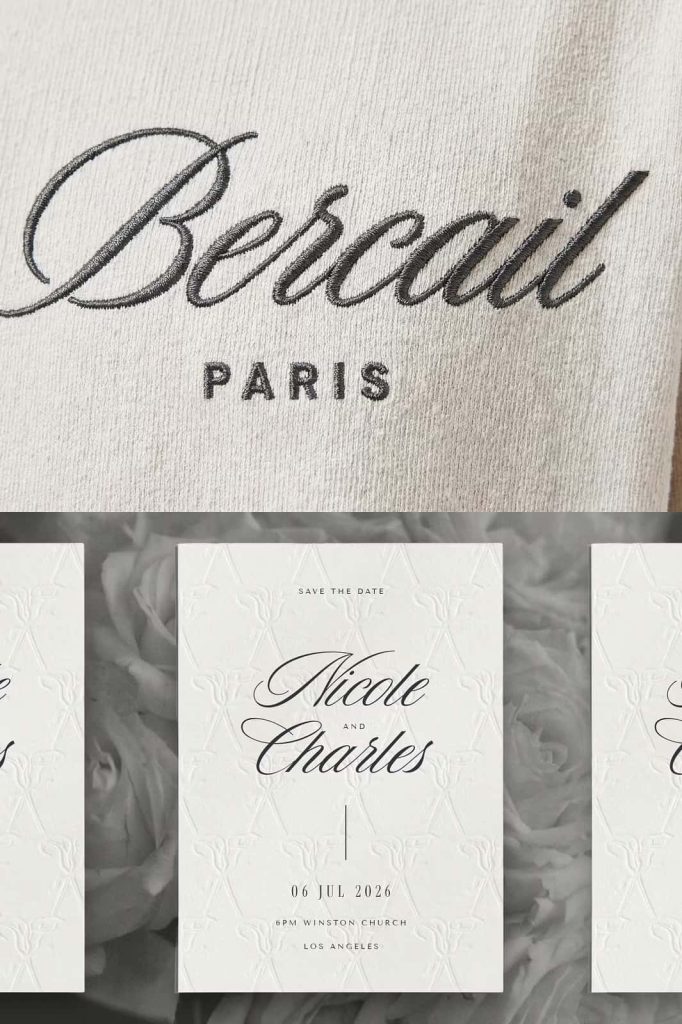
Editorial Society: A Luxury Font Duo for High-End Editorial and Fashion Design
Editorial Society is a refined luxury font duo created for designers who demand elegance, balance, and versatility in their typography. Designed specifically for high-end editorial design, fashion branding, and sophisticated visual identities, this collection delivers a harmonious pairing of two distinct type styles. By combining a timeless serif with a carefully crafted handwritten script, Editorial Society offers a complete typographic system that feels both elevated and approachable.
This font duo allows designers to communicate confidence and refinement while maintaining warmth and personality. Whether used for magazine layouts, premium branding, or visual storytelling, Editorial Society transforms text into a polished and expressive design element.
A Timeless Serif with Editorial Authority
The serif typeface within the Editorial Society collection forms the backbone of the system. Its design draws from classic editorial typography, emphasizing balanced proportions, clean contrast, and strong readability. This serif font carries a sense of authority and sophistication, making it ideal for headlines, body text, and structured layouts.
The letterforms feel deliberate and composed, supporting long-form reading without fatigue. This makes the serif component particularly effective for magazines, books, and editorial spreads where clarity and elegance must coexist.
Designed for Fashion and Luxury Publications
Fashion and luxury branding rely heavily on typography to communicate identity and tone. The serif in Editorial Society supports this need by delivering a polished, high-end appearance that aligns naturally with premium aesthetics. Its refined structure allows brands to present themselves as confident, established, and detail-oriented.
When used in fashion editorials or lookbooks, the serif font provides visual stability and elegance, anchoring layouts with a sense of timeless style.
An Elegant Handwritten Script with Natural Flow
Complementing the serif typeface is a handwritten script designed to introduce softness and personality. This script feels natural and fluid, offering expressive contrast to the structured serif. Its strokes are smooth and intentional, allowing it to enhance designs without overpowering them.
The script brings warmth and human touch to visual identities, making it ideal for accent text, logos, signatures, and secondary headlines. It adds emotional depth while maintaining a refined appearance suitable for luxury design.
A Balanced Pairing for Versatile Typography
What sets Editorial Society apart is the careful balance between its two fonts. The serif and script are designed to work together seamlessly, sharing compatible proportions and visual rhythm. This harmony allows designers to combine them confidently within a single layout.
The pairing creates contrast without conflict, enabling designers to build hierarchy, emphasis, and narrative flow with ease.
Perfect for Branding, Headlines, and Visual Identity
Editorial Society excels in branding projects that require flexibility and sophistication. Designers can use the serif font for primary branding elements such as logos, headlines, and body text, while the script adds personality to taglines, accents, and signature elements.
This versatility makes the font duo suitable for fashion labels, beauty brands, luxury products, and creative studios seeking a cohesive yet expressive typographic system.
Adaptable Across Print and Digital Design
The Editorial Society font duo performs consistently across both print and digital media. In print, its refined details and balanced spacing ensure clarity and elegance. In digital environments, the fonts maintain their visual strength, making them suitable for websites, social media, and online publications.
Designers can rely on this duo to maintain brand consistency across multiple platforms while adapting to different layout requirements.
Why Choose Editorial Society?
Editorial Society offers a complete typographic solution for designers who value luxury, balance, and versatility. Its combination of a timeless serif and an elegant handwritten script provides the tools needed to create sophisticated editorial layouts and refined brand identities.
If your project calls for high-end typography that feels both structured and expressive, Editorial Society delivers a polished and adaptable font duo that elevates every design it touches.